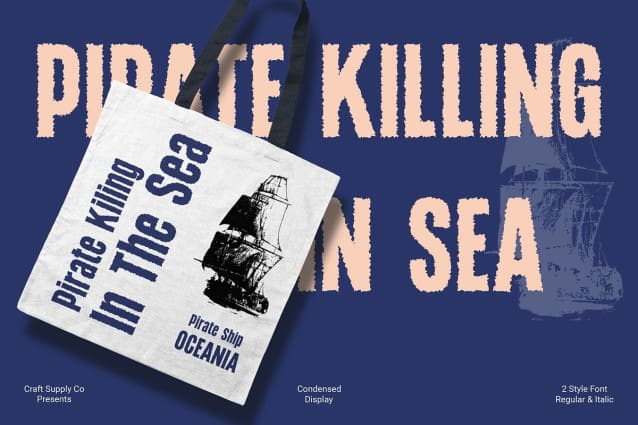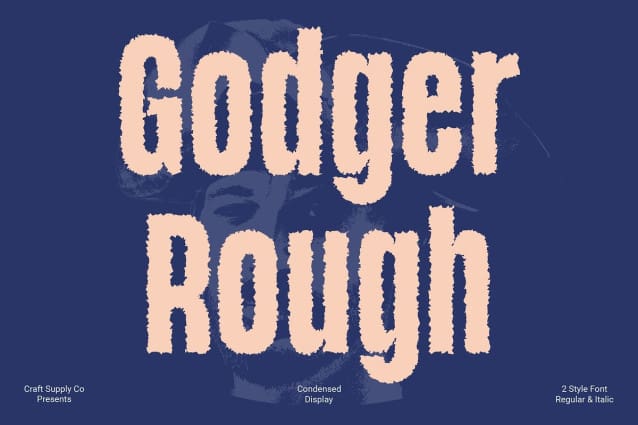
Godger Rough Font
Godger Rough Font: Bold and Dynamic Display Typeface. Bold and Condensed Sans Serif Godger Rough presents a striking display typeface, characterized by its bold and condensed sans serif design. Each letter exudes strength and presence, making it ideal for impactful display purposes.
Rough and Edgy Aesthetic With its rough texture effect, This font adds a raw and edgy aesthetic to any project. The roughness imbues the font with character and personality, making it stand out in a crowded visual landscape.
Perfect for Display Needs Tailored specifically for display applications, This font excels in grabbing attention and conveying messages with boldness and clarity. Its condensed form ensures maximum impact, especially in limited space scenarios.
Versatility in Application Despite its bold and condensed nature, This font offers versatility in application. Whether used in branding, advertising, or editorial design, its dynamic presence shines through, elevating the visual appeal of any project.
Making a Bold Statement This font is a powerhouse display typeface that commands attention with its boldness and rugged charm. With its condensed sans serif design and rough texture effect, it brings a unique and dynamic edge to any display project, ensuring that your message is heard loud and clear.